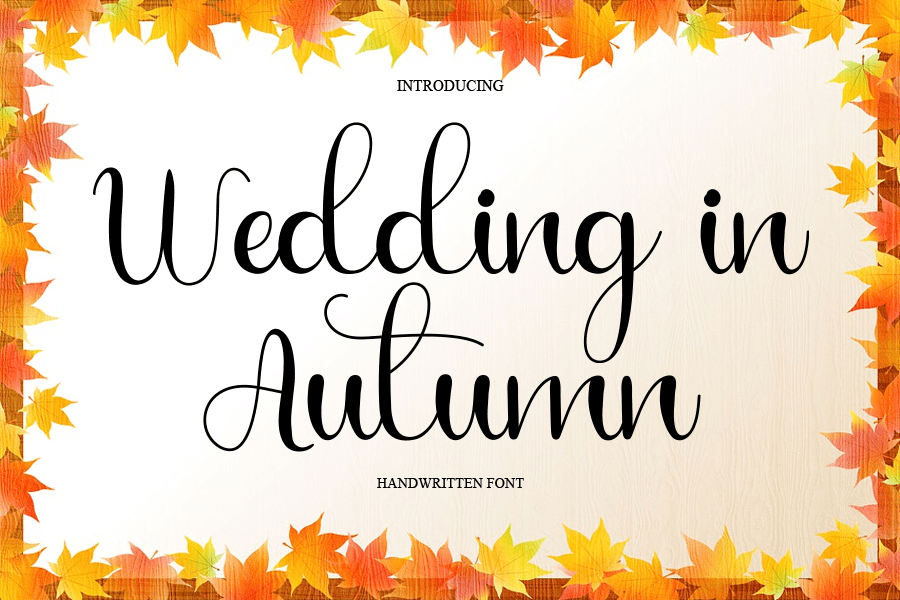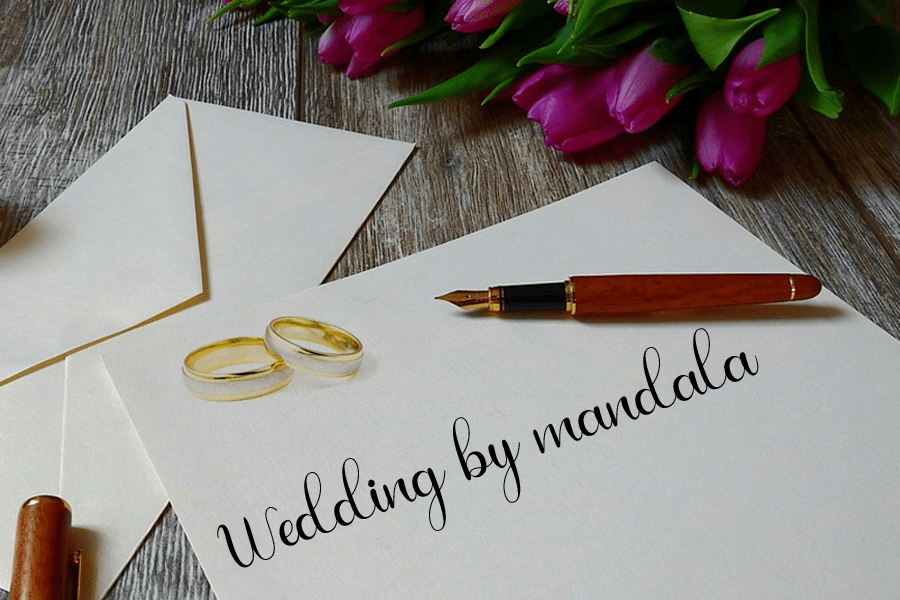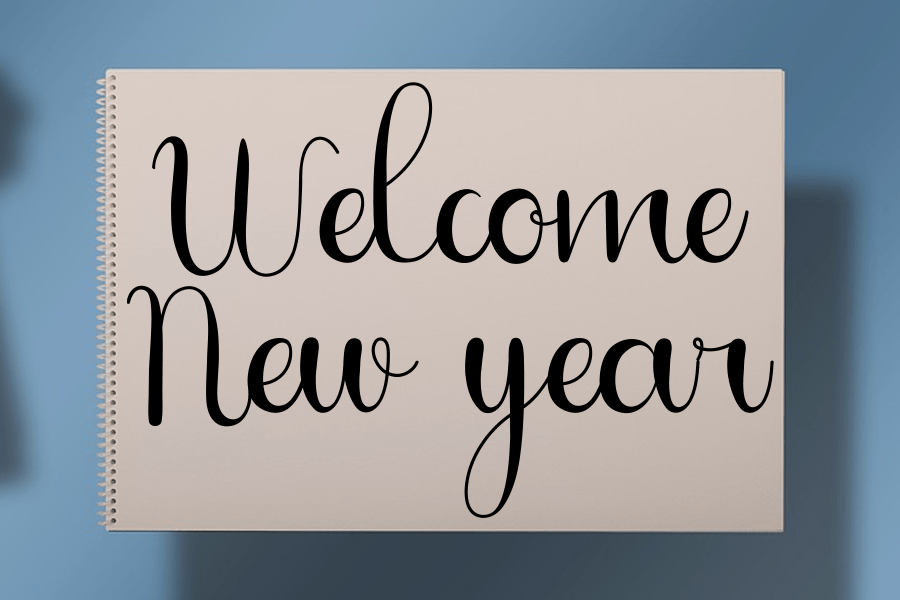
Wedding in Autumn Font
This is a delicate and elegant handwritten font. Its distinct and well balanced letters make this font a masterpiece. Fall in love with its incredibly versatile style and use it to create spectacular designs!
It’s a simple handwriting perfect for weddings, wall hangings, decorations, products and more